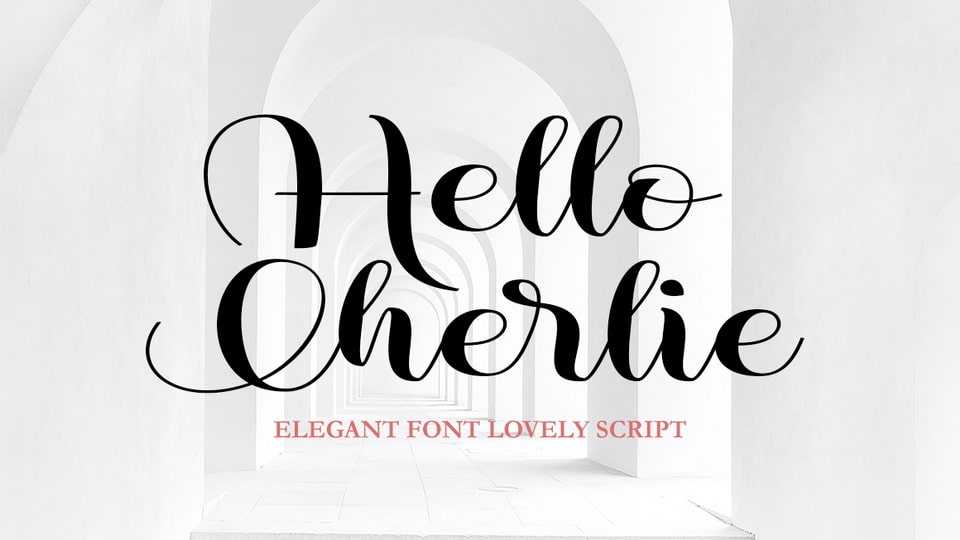
Download Hello Cherlie font, a modern brush script typeface with soft terminals and a bit of bounce. Hello Cherlie has two sets of uppercase letters, one simpler and the other more flashy.